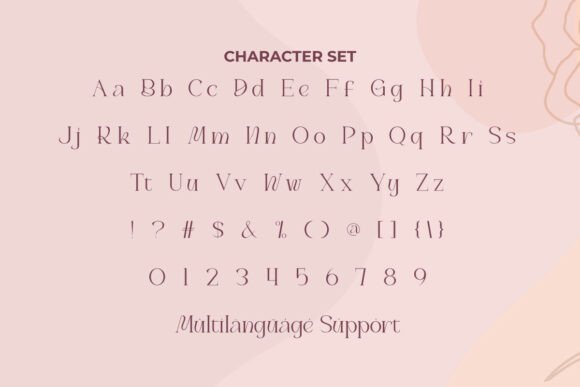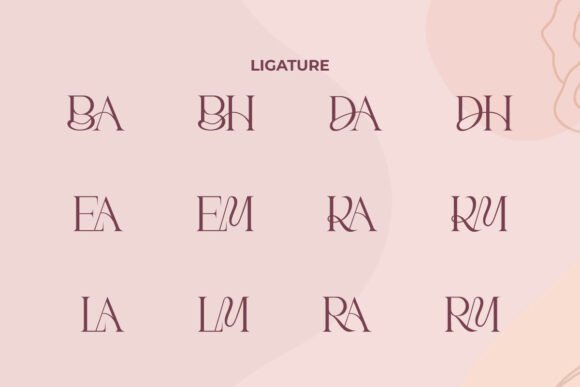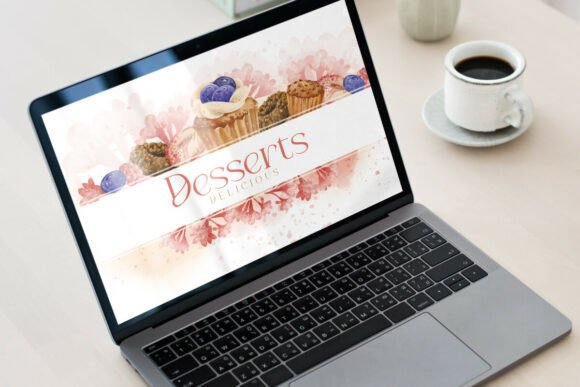
Introduction to Maura Hirmala Font Font
Fonts play a crucial role in design, and the Maura Hirmala Font font is a typeface that brings both character and versatility to any project. Whether you’re working on a branding project, a website, or a print design, the Maura Hirmala Font font offers a unique style that can elevate your work.
The Maura Hirmala – a modern serif display font with elegant, high-contrast strokes and artistic flourishes.
Maura Hirmala is a stunning serif display font adorned with elegant floral petal ornaments and graceful curves Its refined beauty enhances typography across a wide range of creative applications.
Key Features of Maura Hirmala Font Font
Why Choose Maura Hirmala Font Font?
The Maura Hirmala Font font is more than just a typeface – it’s a design tool that helps you communicate your message with style and clarity. Its unique character set and versatile design make it suitable for a wide range of applications, from elegant invitations to bold headlines.
With its carefully crafted letterforms and balanced proportions, the Maura Hirmala Font font ensures readability and visual appeal across all mediums.
What makes Maura Hirmala Font font special?
The Maura Hirmala Font font stands out with its unique design, exceptional readability, and versatility across various design applications.